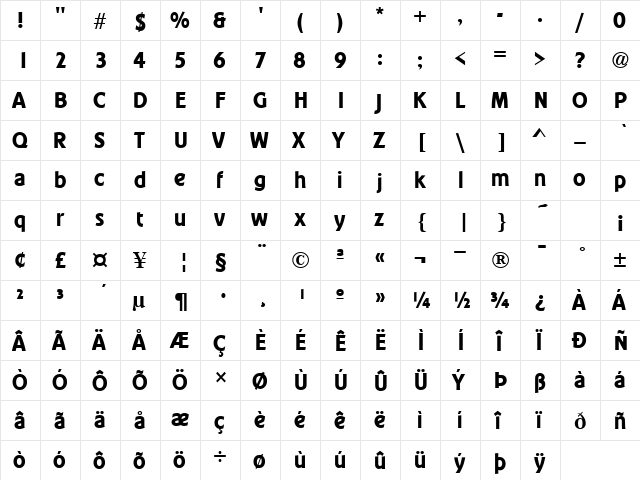
Conformity Regular
Design Context for Conformity Typeface
Conformity takes a measured approach to typography — its balanced proportions and neutral character make it a reliable workhorse for both digital and print work.